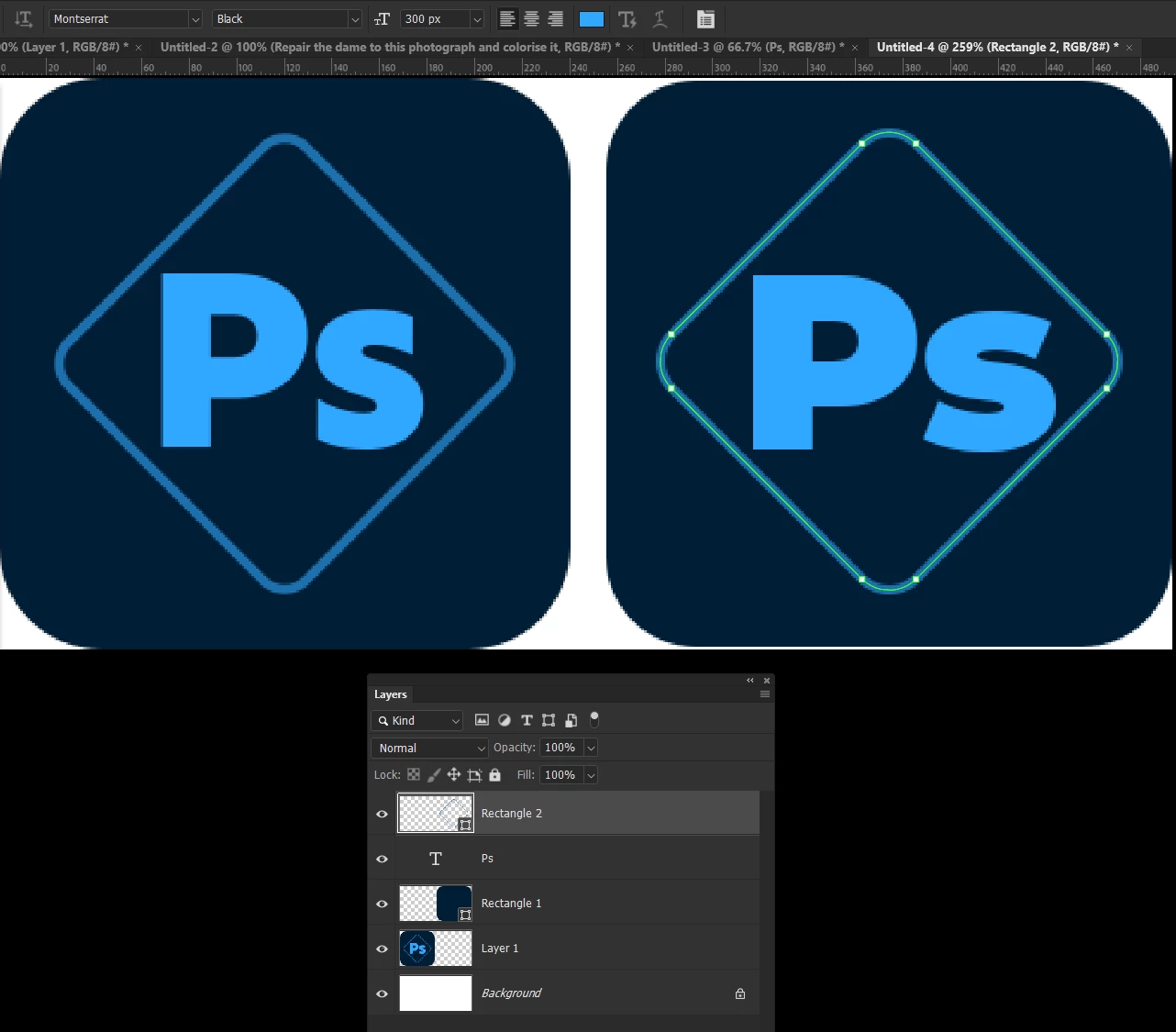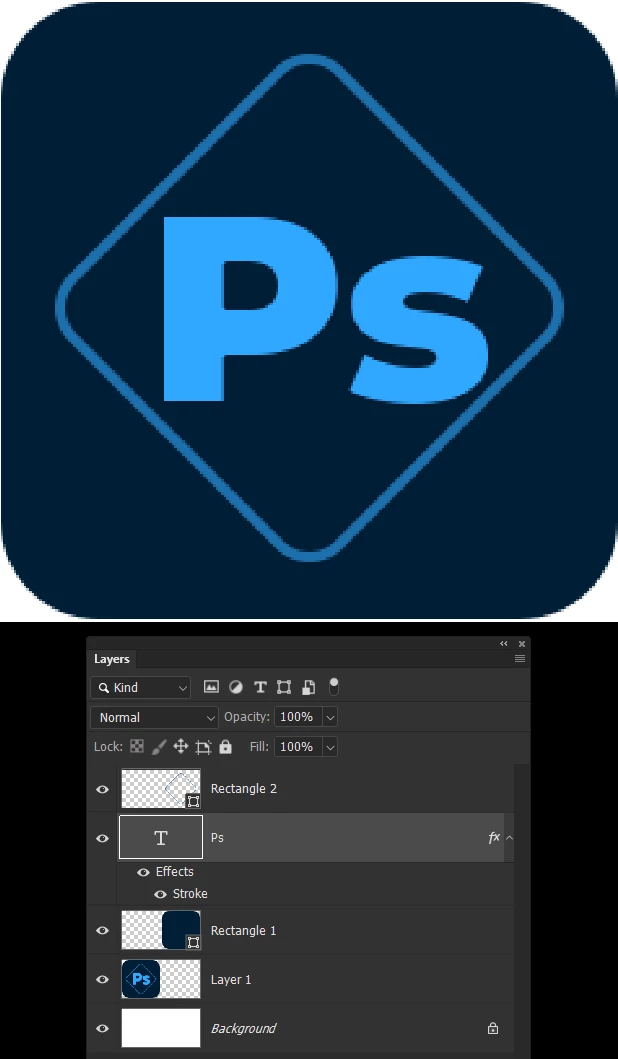
New font for Adobe Photoshop
Since Adobe updated the Photoshop app, I noticed the font of that logo has changed. What font does Adobe use for the new Adobe Photoshop logo?
This is not a definitive answer because I don’t know, but it could be a “black” or “heavy” variant of the official Adobe brand font, Adobe Clean.
Conrad, Adobe now has a visual font finder
These are about half of the options it suggests, but with more letters I am sure it would be more specific.
This is the first option. A bit too heavy, and the S is compressed vertically.
The table called it Montserrat Extra Bold, but it only shows as Black for me.  So adding an inside stroke the color of the background took it down a micro-weight.  Font blasphemy, I know, but I actually like Comic Sans!  (Except I use Captain Comic.)